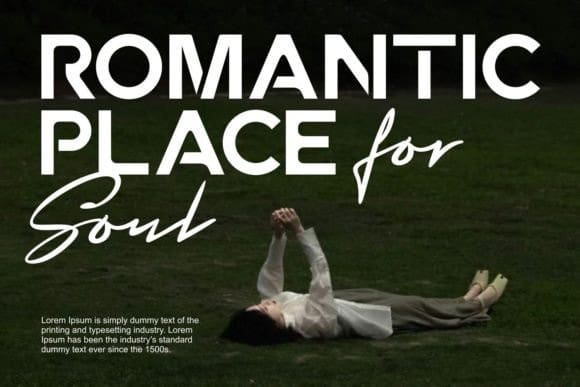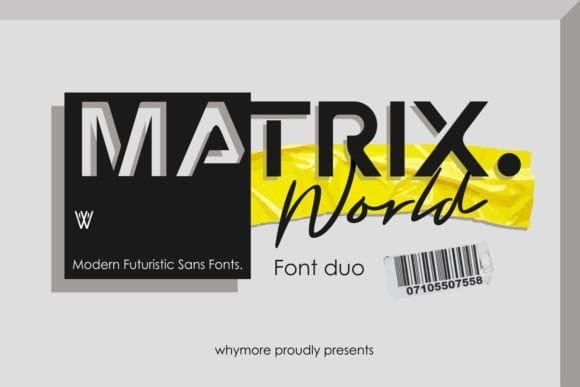
Matrix World Font
Matrix World Font Duo, a distinctive combination of Serif and Sans typefaces. This futuristic, eye-catching style is perfect for those striving for a unique standout aesthetic in their graphic works. Opt for MatrixWorld when you want to infuse your projects with timeless elegance and visual dynamism.